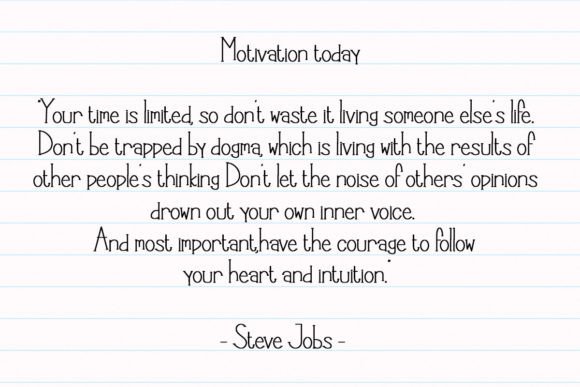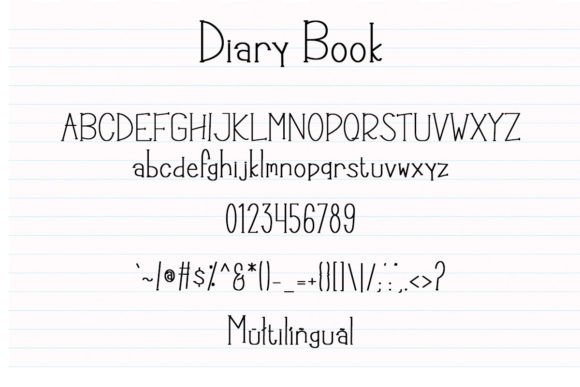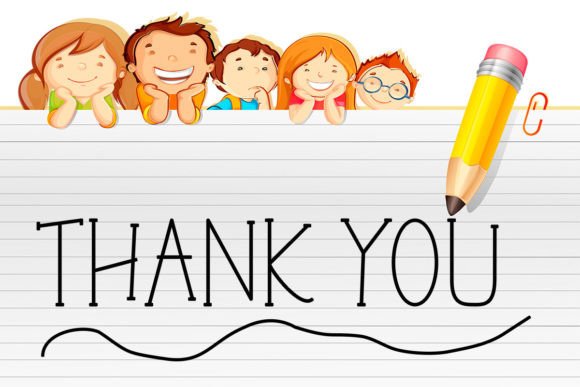
The Diary Book Font: A Friendly Touch for Your Designs
Have you ever been in the middle of a design project, and suddenly, you’re stuck on finding the perfect font? I recall a recent experience where I was working on a kids’ craft project, and I needed a font that would add a friendly, approachable touch. That’s when I discovered the Diary Book font, a simple handwritten font that has become a staple in my design toolkit.
A Personal Review: What I Love and What to Consider
- ✅ The Diary Book font is incredibly versatile and can be used for a wide range of applications, from greeting cards to kids’ crafts.
- ✅ Its handwritten style adds a warm, friendly touch to any design.
- ✅ The font is easy to read, making it perfect for body text or captions.
- ⚠️ Some users might find the font a bit too simplistic for certain projects.
- ⚠️ The font may not be suitable for very formal or professional designs.
The Story Behind Diary Book Font
The Diary Book font was designed with the intention of creating a friendly, approachable font for everyday designs. The designer aimed to create a font that would feel like a personal, handwritten note. With its simple and clean design, Diary Book font has become a popular choice among designers and crafters.
| Font Name | Diary Book Font |
| Author | ABDStudio |
| What is the Diary Book font best used for? | The Diary Book font is versatile and can be used for a wide range of applications, including greeting cards, kids’ crafts, and creative projects. |
| Is the Diary Book font suitable for body text? | Yes, the Diary Book font is easy to read and can be used for body text or captions. |